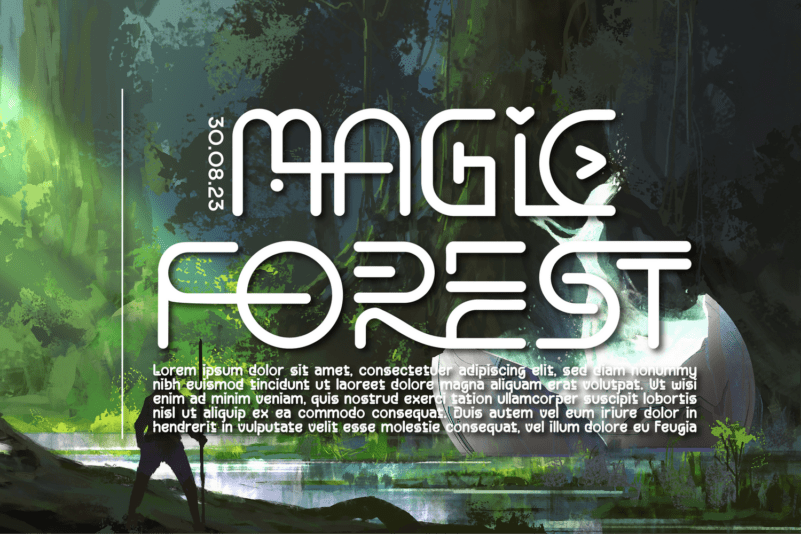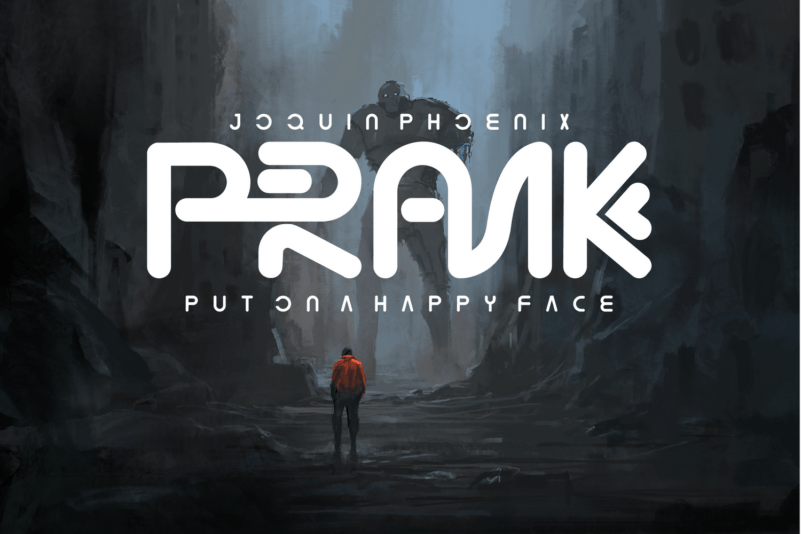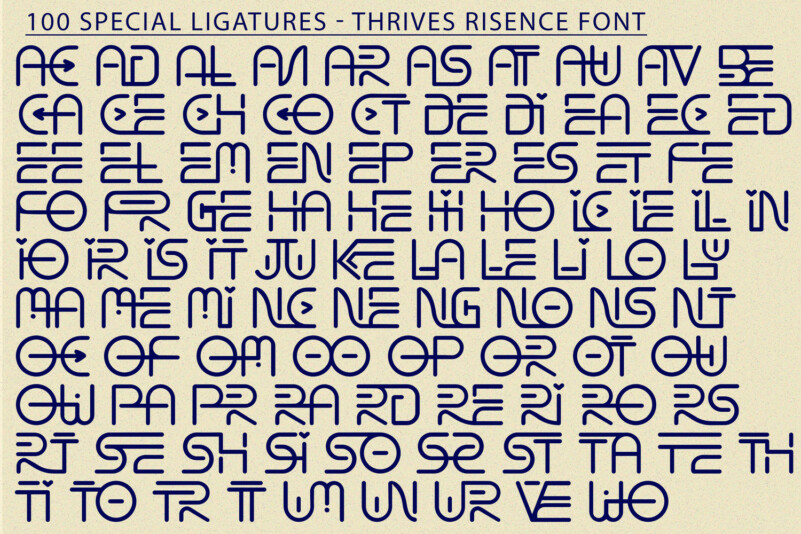
Thrives Risence Font is a futuristic science fiction font. A modern sans-serif typeface using minimal letterforms for a futuristic, sci-fi -inspired feel. Perfect for technology, sci-fi, science and all kinds of futuristic projects. Create science fiction posters & flyers, website headers, high-tech logos and so much more!
Thrives Risence was built with OpenType features and includes 100 ligatures, alternate, numbers, punctuation, and it also supports other languages.
AC AD AL AN AR AS AT AU AV BE CA CE CH CO CT DE DI EA EC ED EE EL EM EN EP ER ES ET FE FO FR GE HA HE HI HO IE IC IL IN IO IR IS IT JU KE LA LE LI LL LO LY MA ME MI NC ND NE NG NO NT NS OC OF OM ON OO OP OR OT OU OW PA PR RA RD RE RI RO RS RT SE SH SI SO SS ST TA TE TH TI TO TR TT UM UN UR VE WI WO